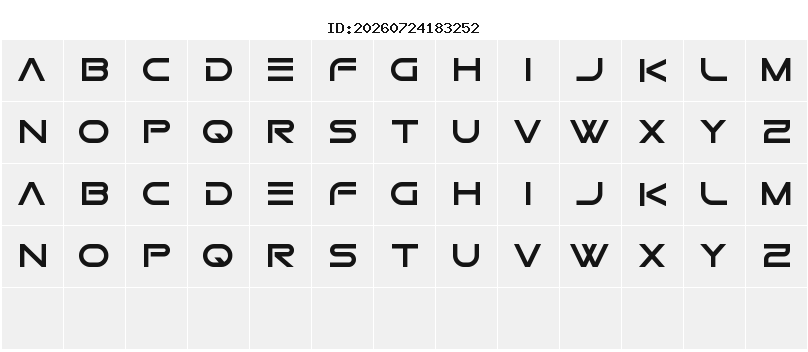
• Font Name: Gtek Nova
• Designer: Carlos Matteoli
Gtek Nova.ttf is a modern, elegant sans-serif font designed for ultimate readability and visual harmony. Perfect for branding, headlines, web design, and print materials.